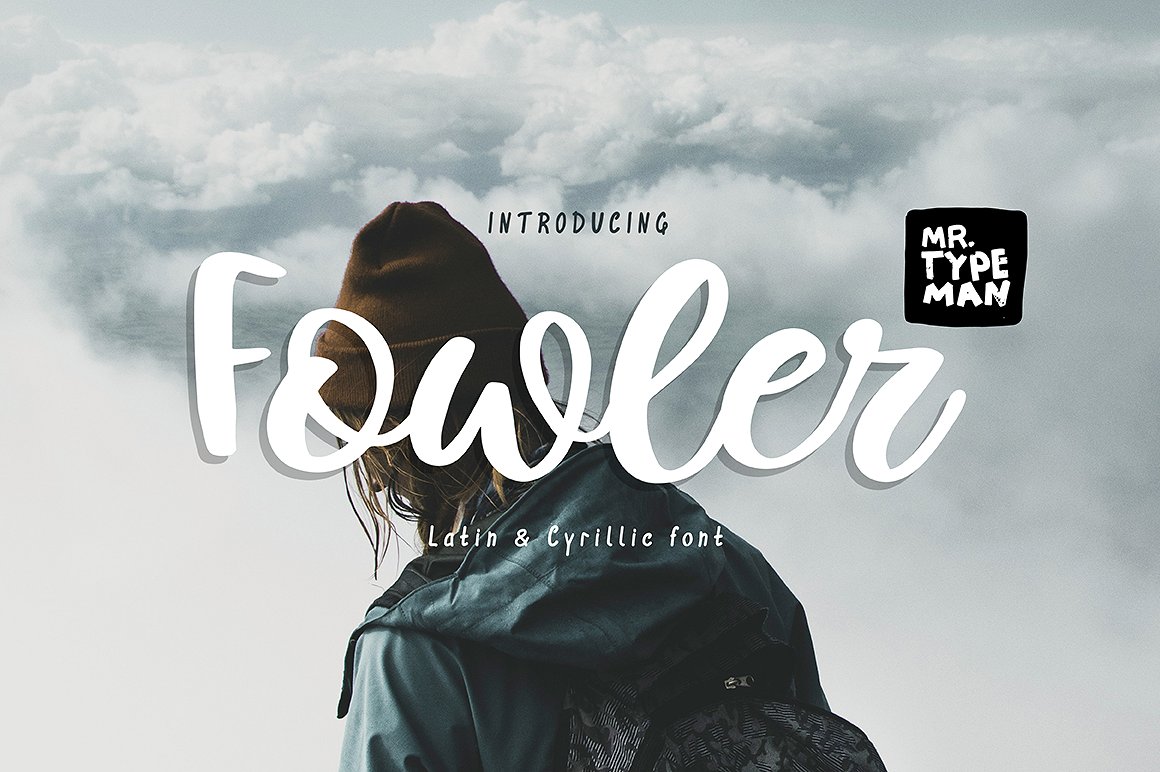
Fowler Handwritten Script
Fowler Handwritten
Fowler Handwritten Script Font
Meet my new font Fowler with its pleasant and charismatic style, wich simulates natural handwriting. Fowleris perfect for headings, logos, wedding invitation, fashion design, t-shirt, letterhead, signage, lettering quotes, posters, badges and any more.